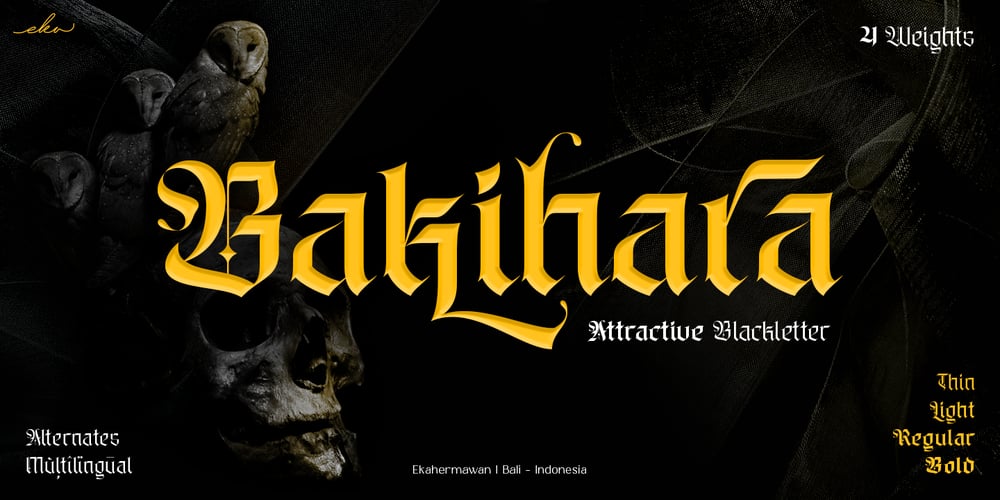
Bakihara Font Family was designed by Putu Eka Hermawan and published by Ekahermawan. Bakihara contains 4 styles and family package options. Introducing Bakihara is an attractive blackletter family with a full set of uppercase and lowercase characters, alternates characters, ligatures characters, multilingual support, currency figures, numerals and punctuation.Bakihara comes with 4 weights from Thin to Bold that will support your creativity in creating perfect designs for various projects such as logo design, branding, posters, magazines, labels, merchandise, invitations, advertisements, tattoos, clothing, music events, and many more project with a Gothic theme.If you need support or more information about this itemplease contact me:ekahermawanputu@gmail.comThank you very muchI really hope you enjoy using it!